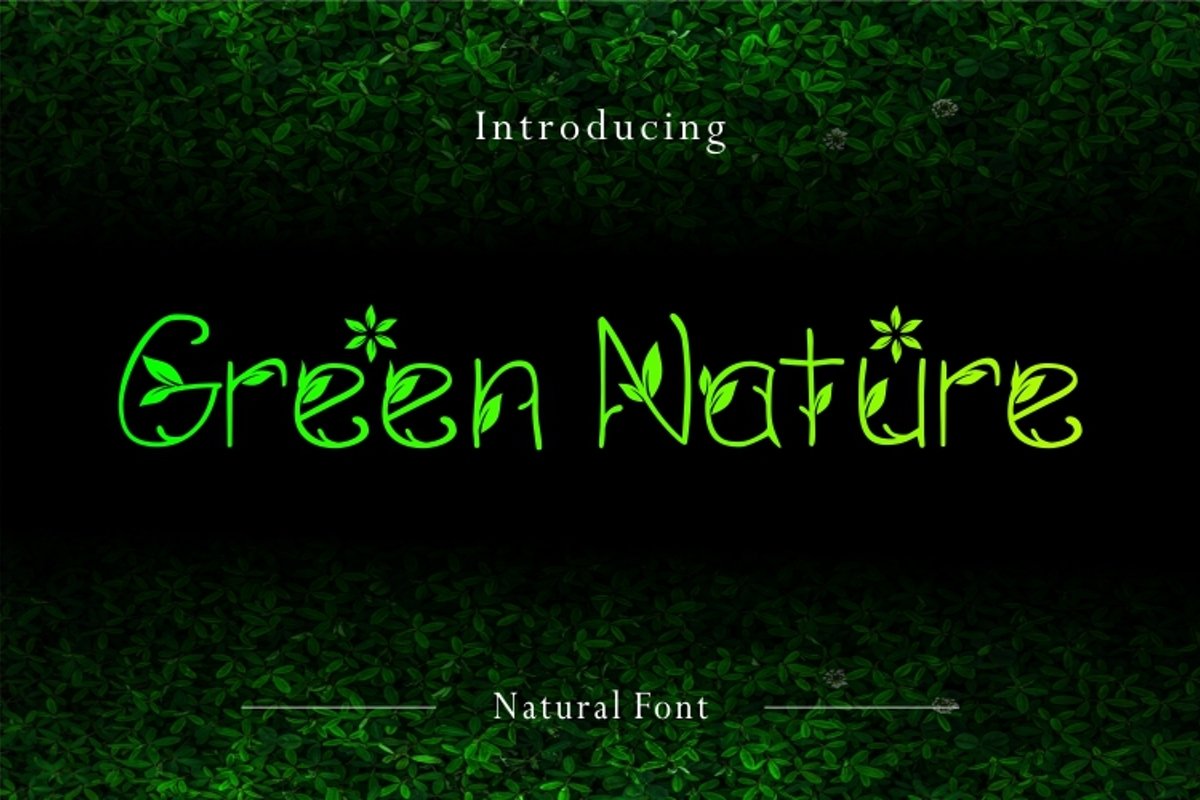
Green Nature
GREEN NATURE
We're introducing our new product that we named Green Nature..... this font is inspired by leaves, so it gives a beautiful and natural impression. This font is very suitable for clothing, logos, magazines, banners, etc. With natural touch, this font is the best choice for your business.
Green Nature